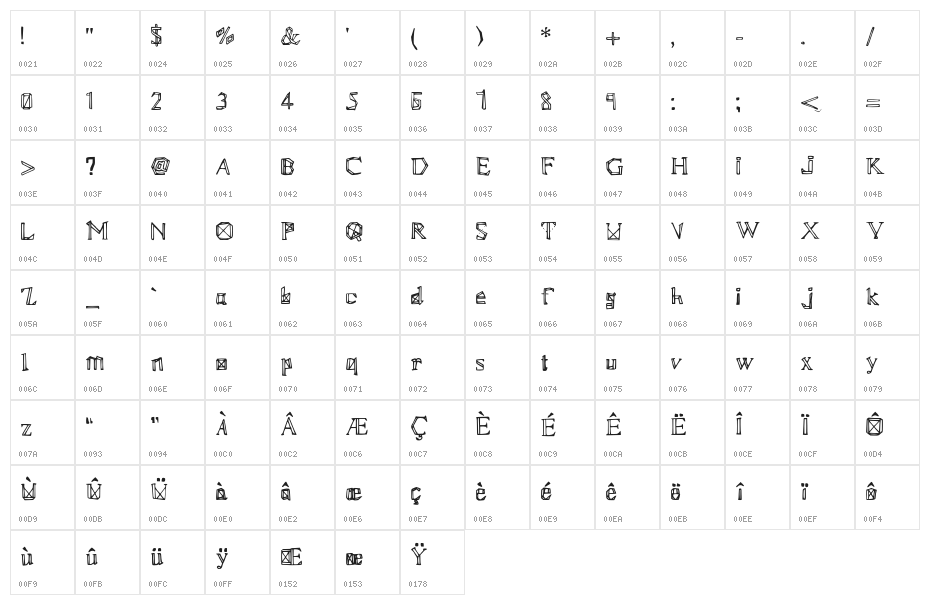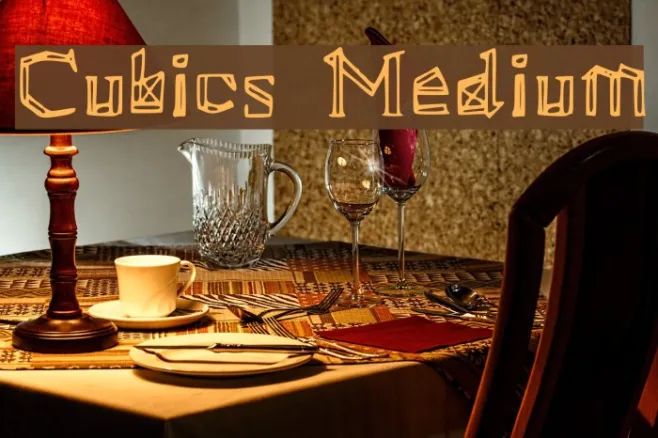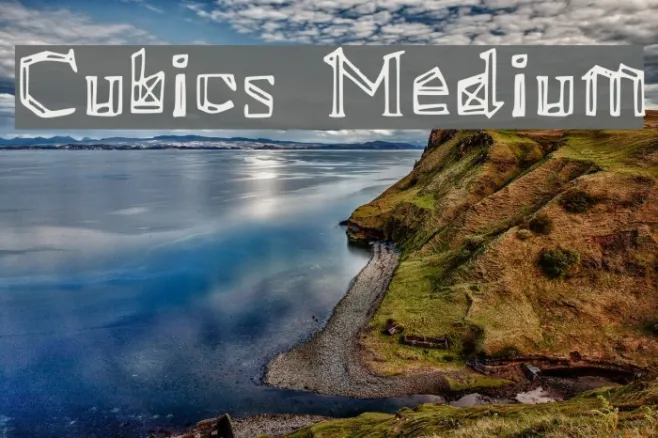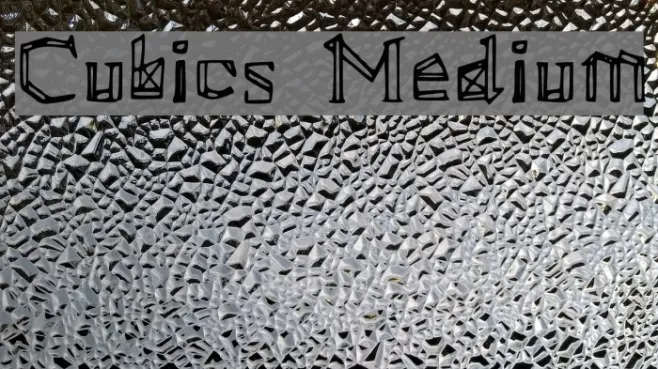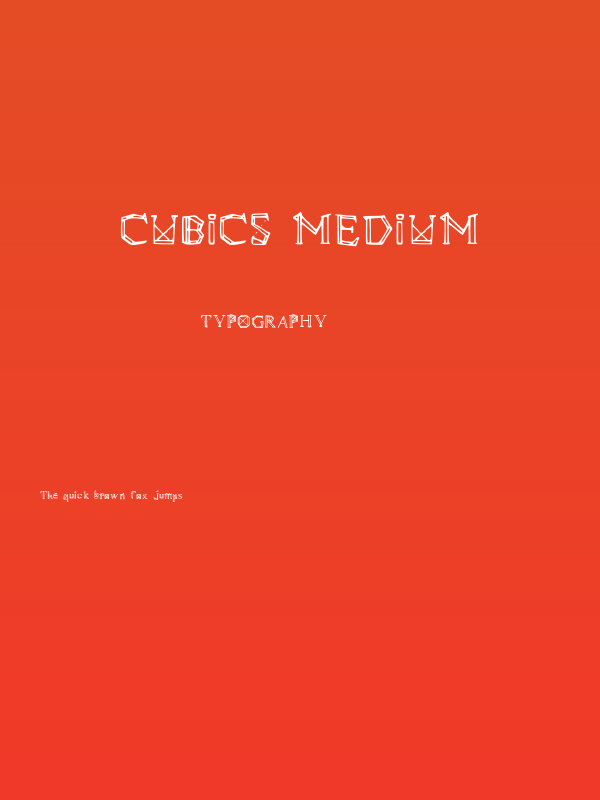
Cubics Medium Font
Cubics Medium Description
This font features a unique, geometric design with a hand-drawn aesthetic. Each character is constructed with angular lines and a slightly rough texture, giving it a distinctive, artistic appearance. The uppercase and lowercase letters maintain a consistent style, with sharp edges and varying line thicknesses that create a sense of depth and dimension. Numbers and special characters follow the same design principles, ensuring a cohesive look across all glyphs. The font's playful yet structured form makes it stand out, ideal for creative projects that require a bold visual statement.
| Proposed Projects | Ideal for posters, album covers, branding, and creative digital artwork. |